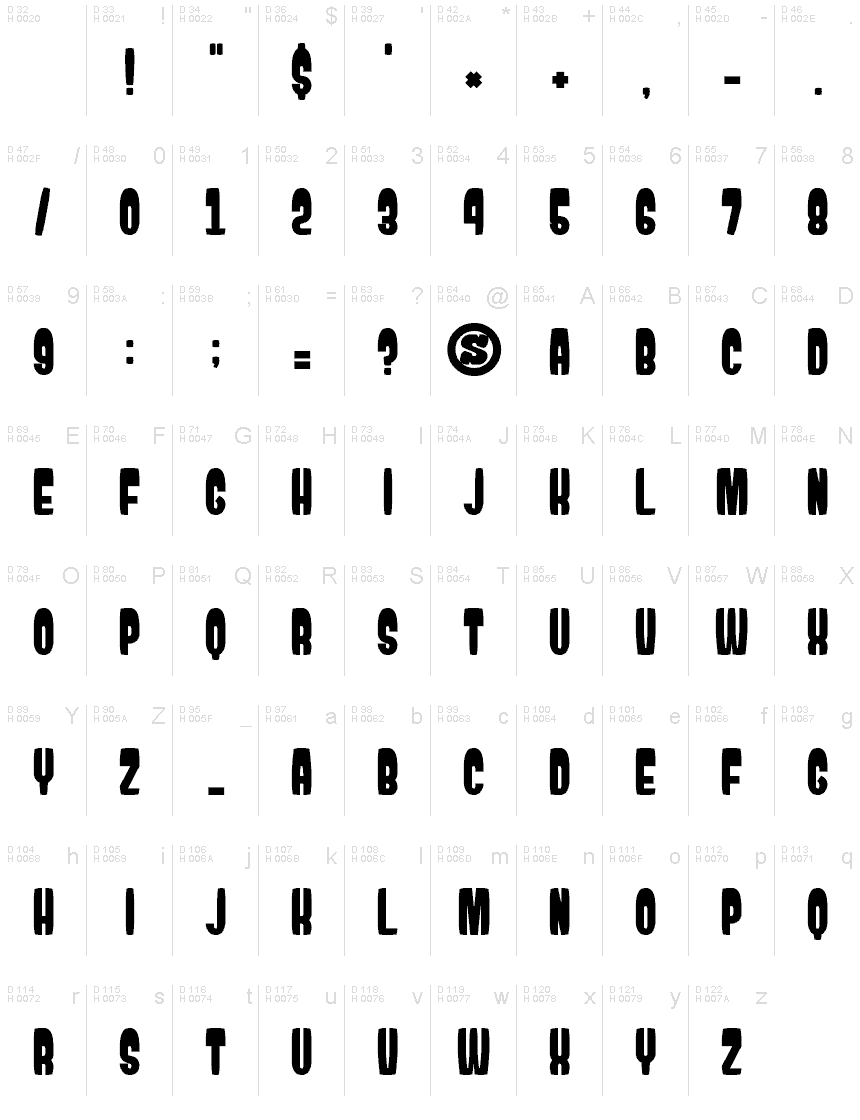
Atama Naga
Atama Naga font by Goma Shin is a condensed bold display typeface that leaves a strong visual impact. The vintage-inspired font has a retro aesthetic with an emphasis on dominance even in the least number of words. Its characters are unusual, so their appearance makes them more suitable for titles and quick text that require instant attention.
Use Atama Naga whenever you need to build impressive headlines, especially those printed on newspapers and magazines or published online. Other uses include personal branding projects, business logo designs, book covers, invitations, labels, tags, quotes, merchandise designs as well as posters and social media posts.